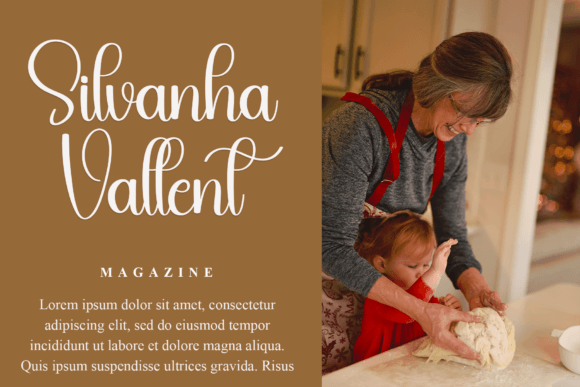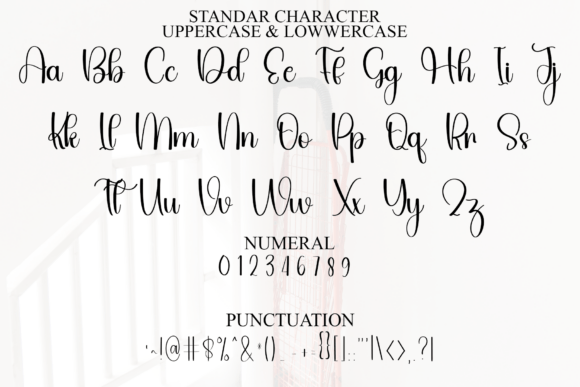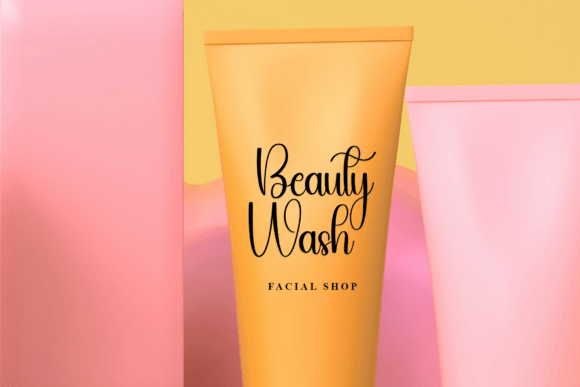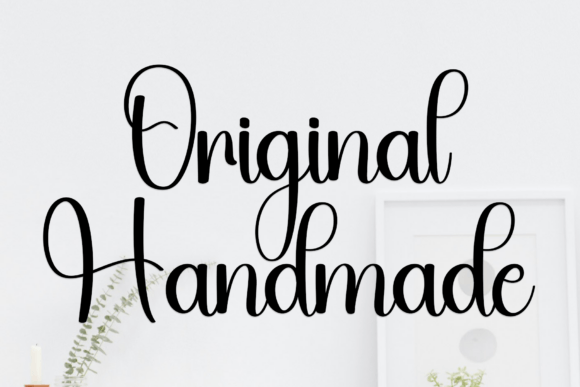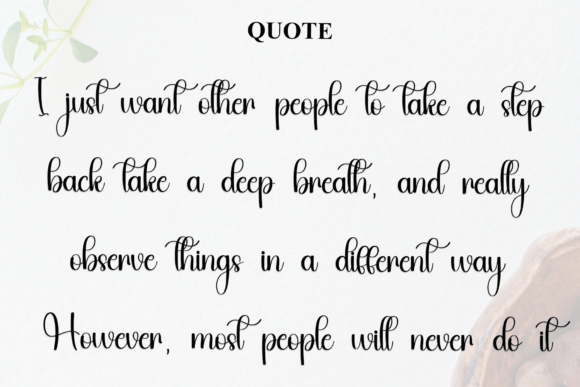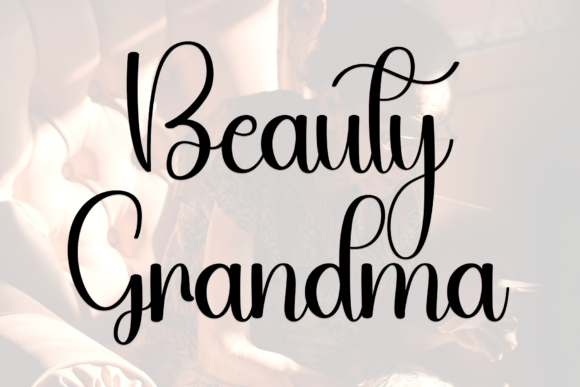
Introduction to Barbie Grandma Font
Barbie Grandma is an exquisite handwritten font, masterfully designed to become a true favorite.
Key Features of Barbie Grandma Font
Why Choose Barbie Grandma Font?
Barbie Grandma Font offers exceptional quality and versatility, making it a valuable addition to your design toolkit. Whether you’re creating for personal projects or commercial use, Barbie Grandma Font delivers professional results.